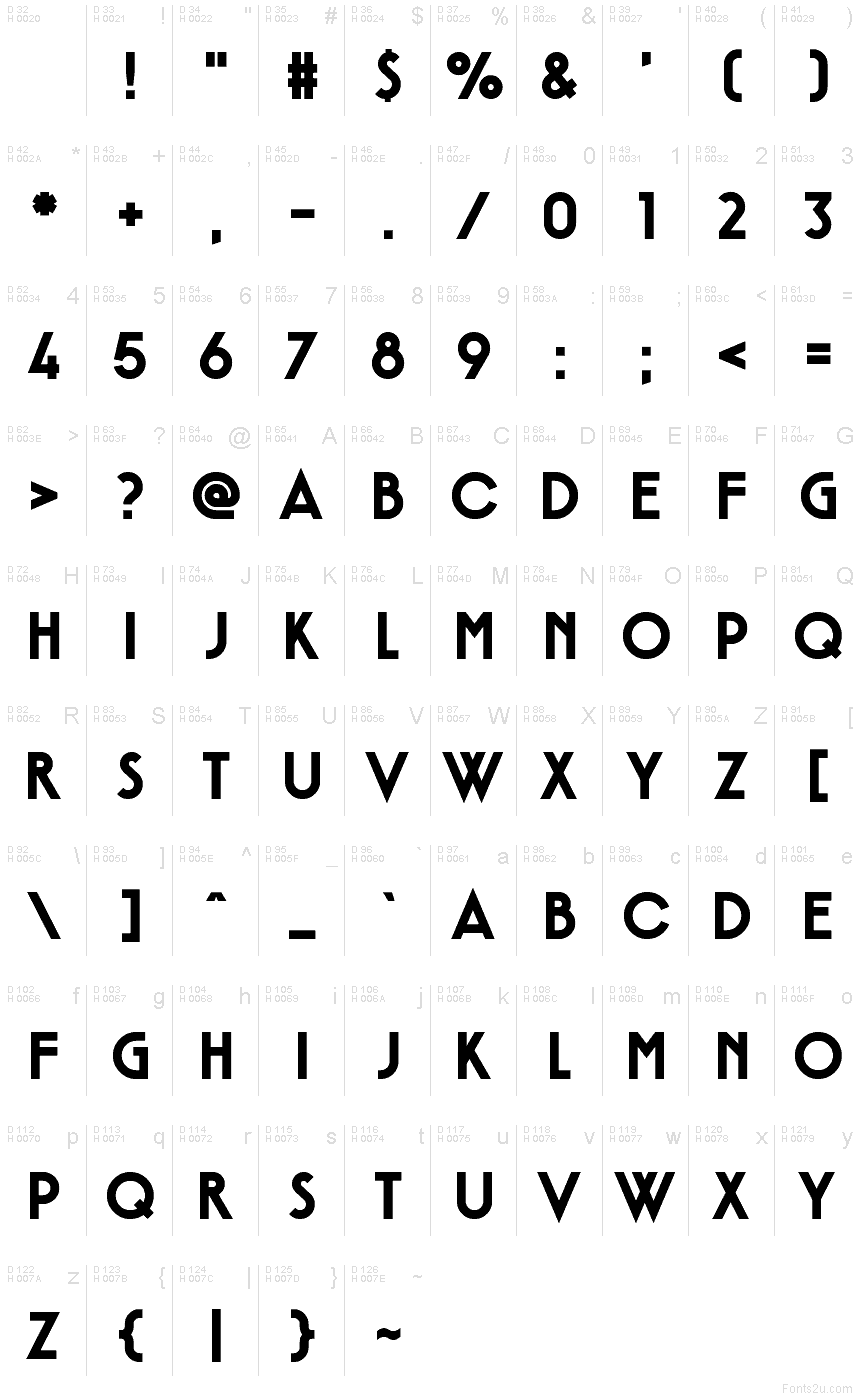
The Visitor
The Visitor font designed by Chequered Ink is a free sans serif font with a minimalistic design for artists and designers who fancy less. The monospace typeface displays distinct geometric shapes in a modernist aesthetic which gives it an industrial feel. Its stark appearance brings intense readability, making it even more inviting to audiences.
Whether you’re creating typographic posters, websites headers, mobile applications designs or you plan on using The Visitor for small sizes including texts within magazines and newspapers, the font will allow your readers to focus on what truly matters: the content.